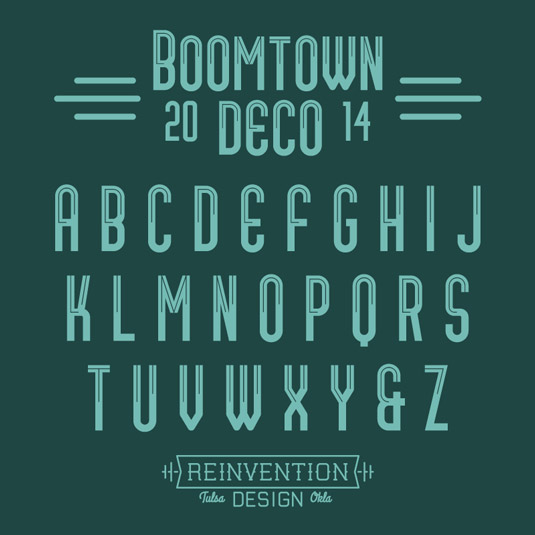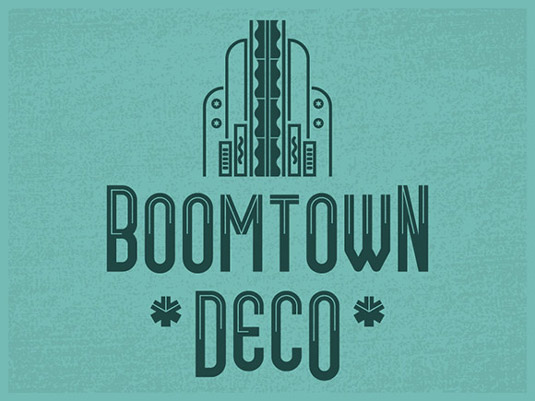
Font of the day: Boomtown Deco
Every day we showcase the best fonts on the web. Today it's Boomtown Deco by Chris Skillern, which is totally free to download.
Boomtown Deco by Chris Skillern
Today's font of choice, Boomtown Deco, was created by graphics designer Chris Skillern. "I hail from Tulsa, Oklahoma, a city that flourished in the early 20th century due to the discovery of oil," he comments on Dribbble. "Because of the period it was born into, Tulsa's downtown is filled with beautiful art deco architecture. This font is a tribute to my city, inspired by the tall, condensed lettering of art deco-style posters."